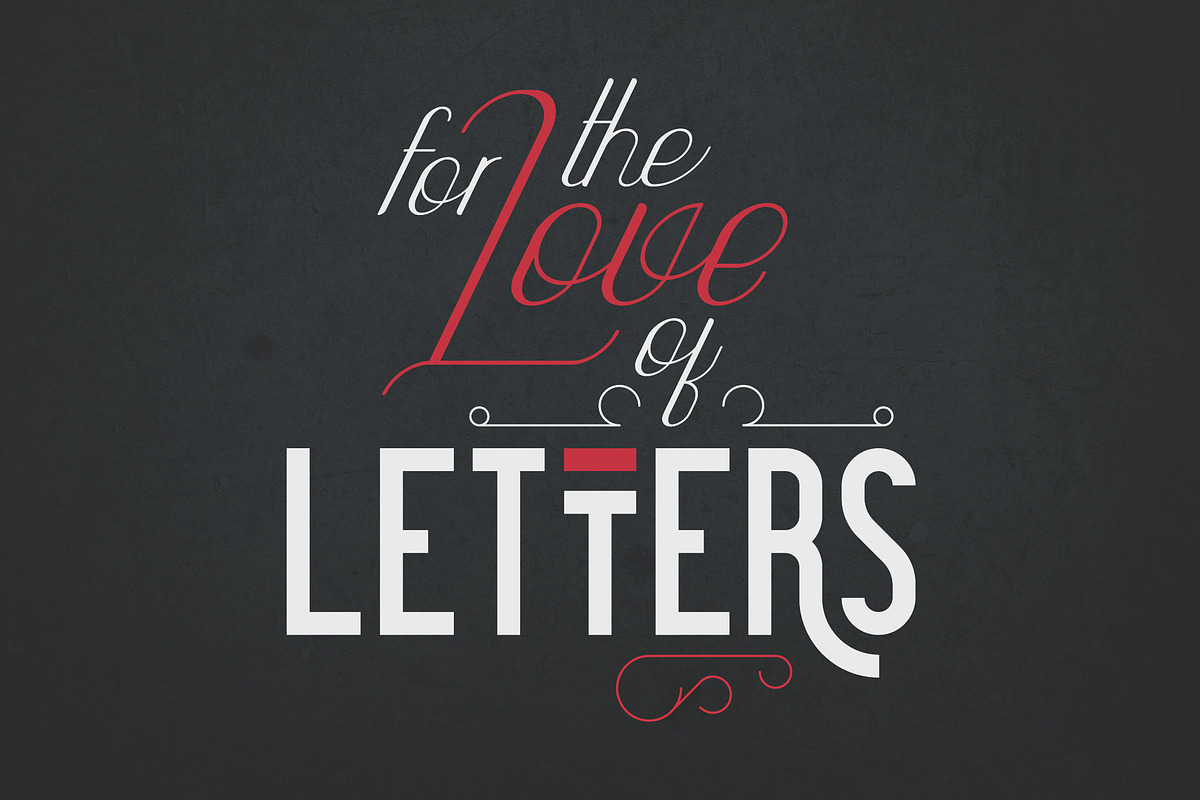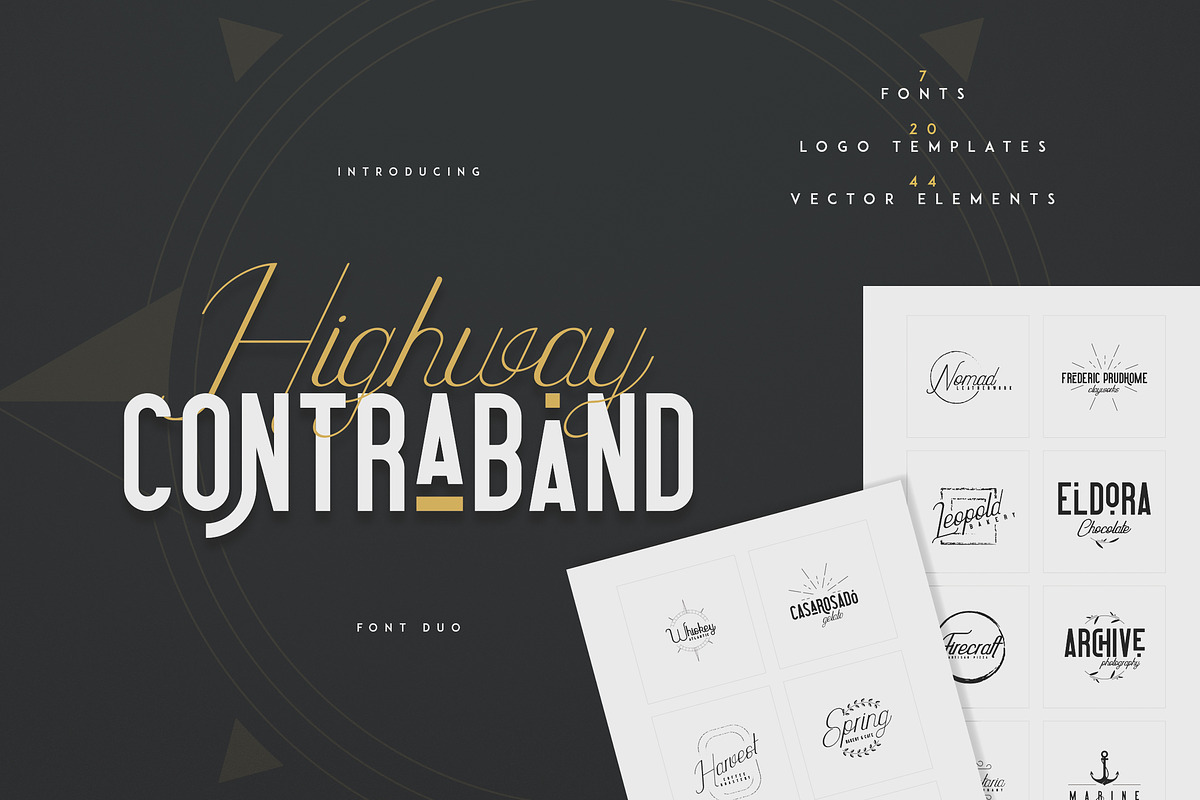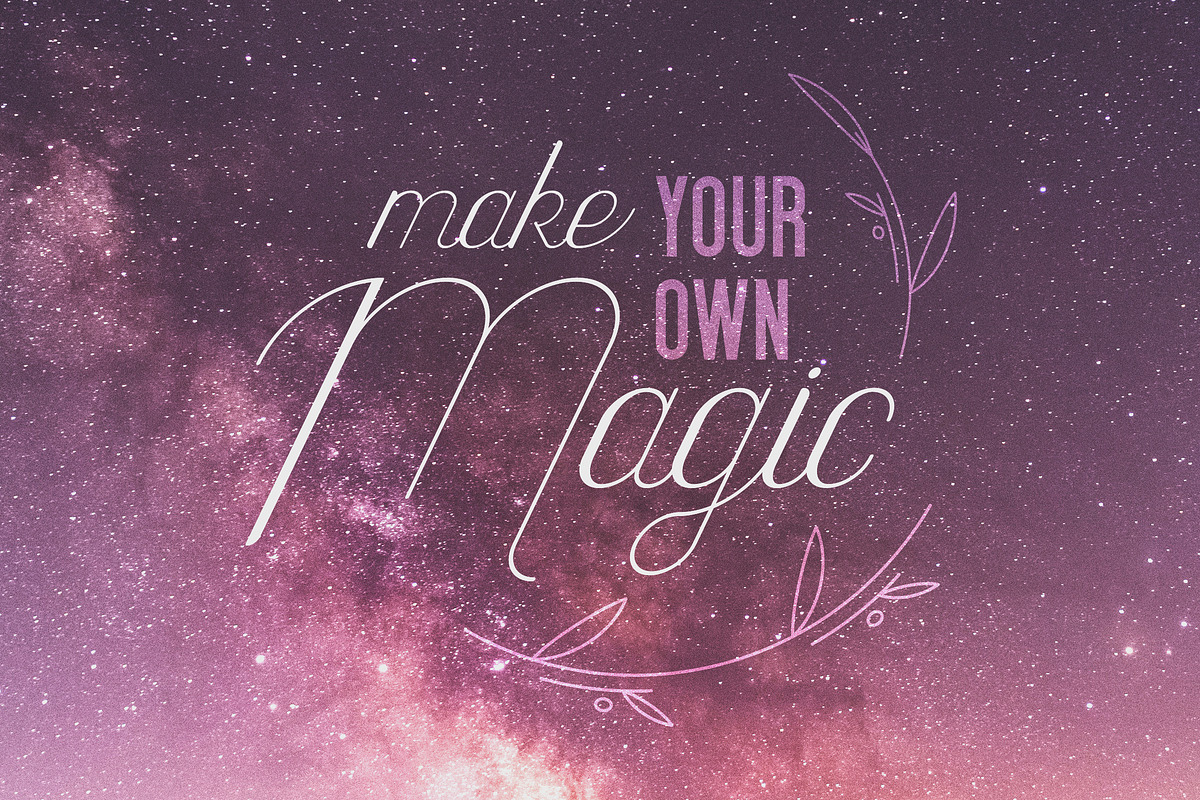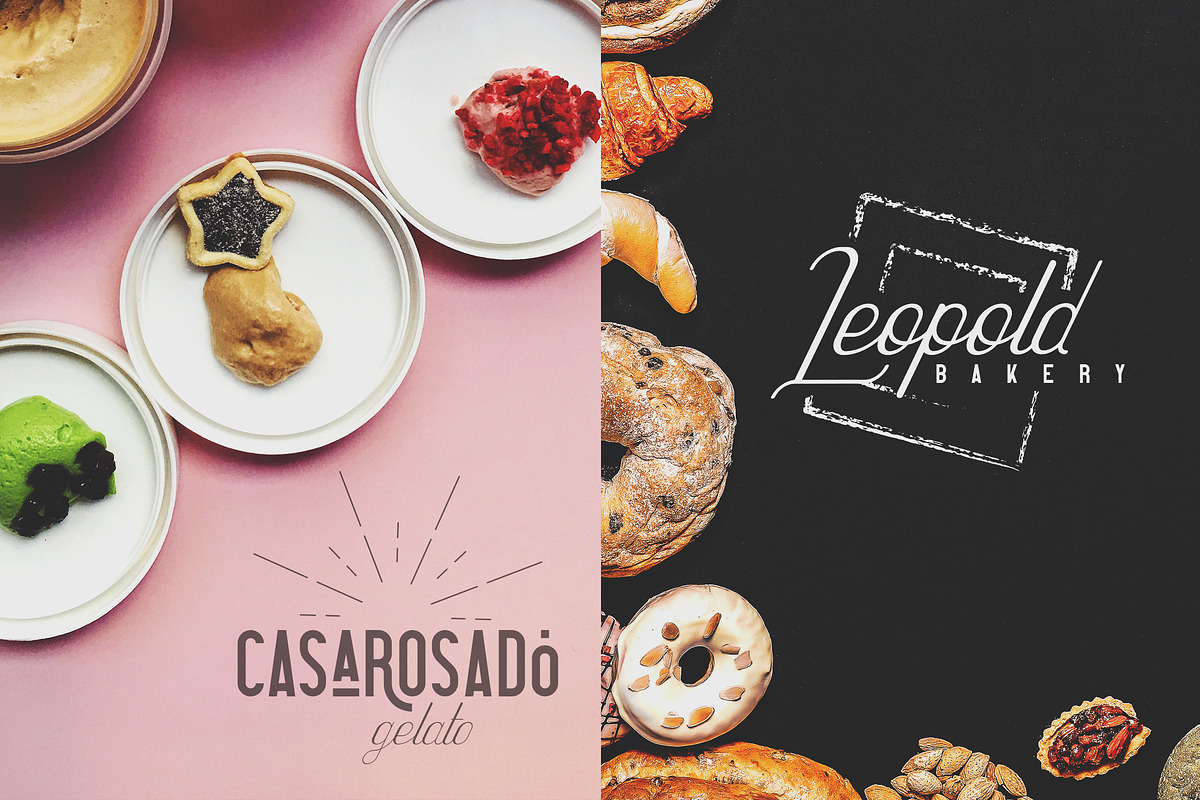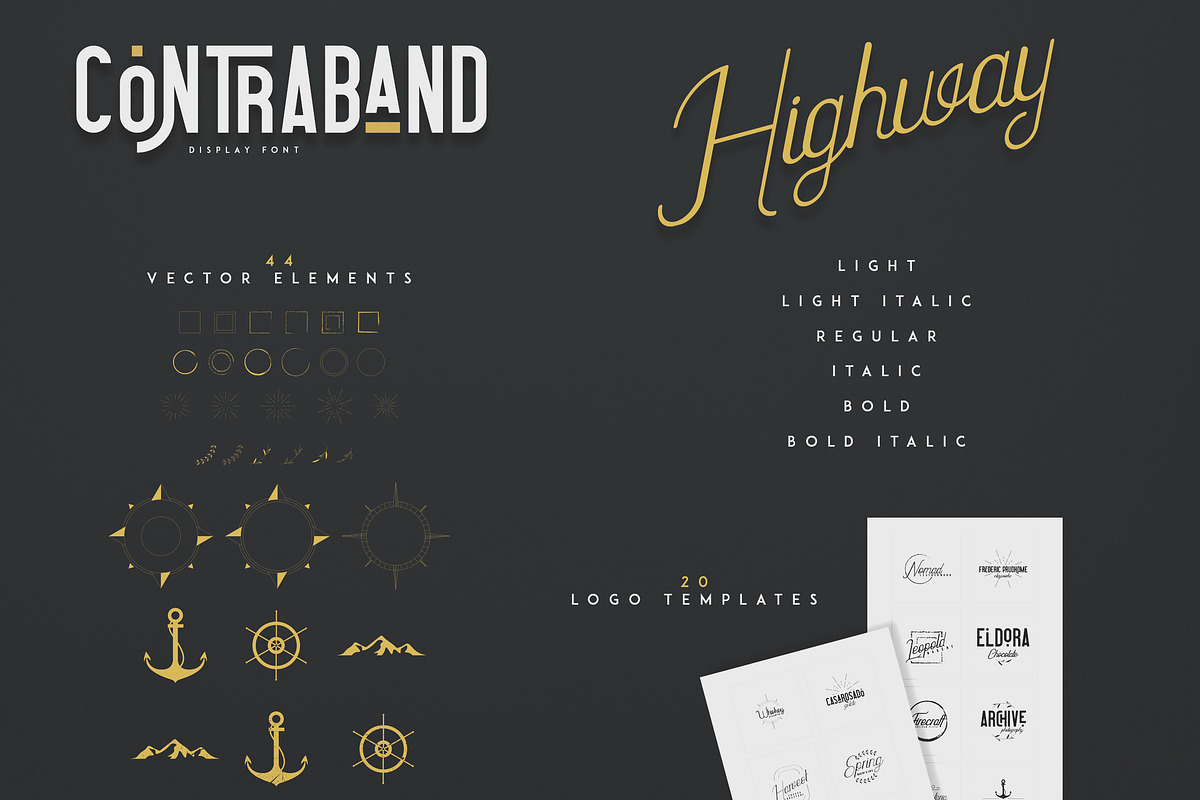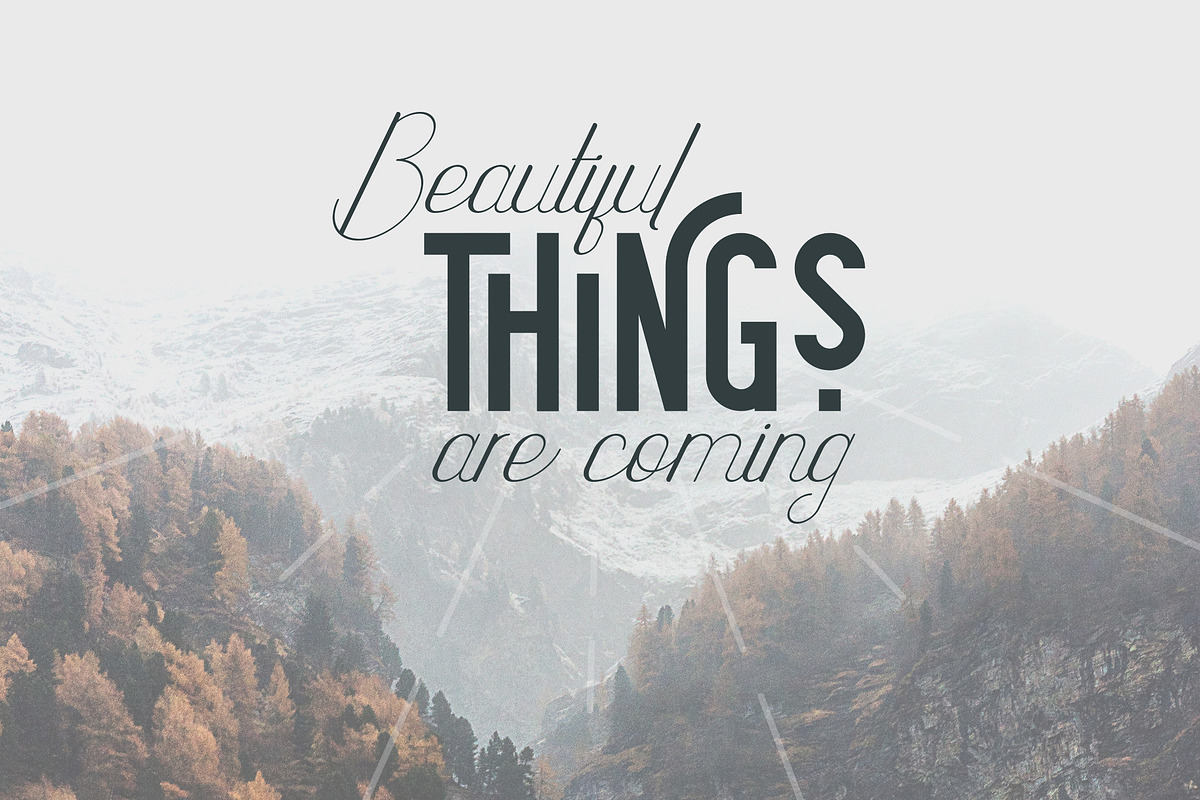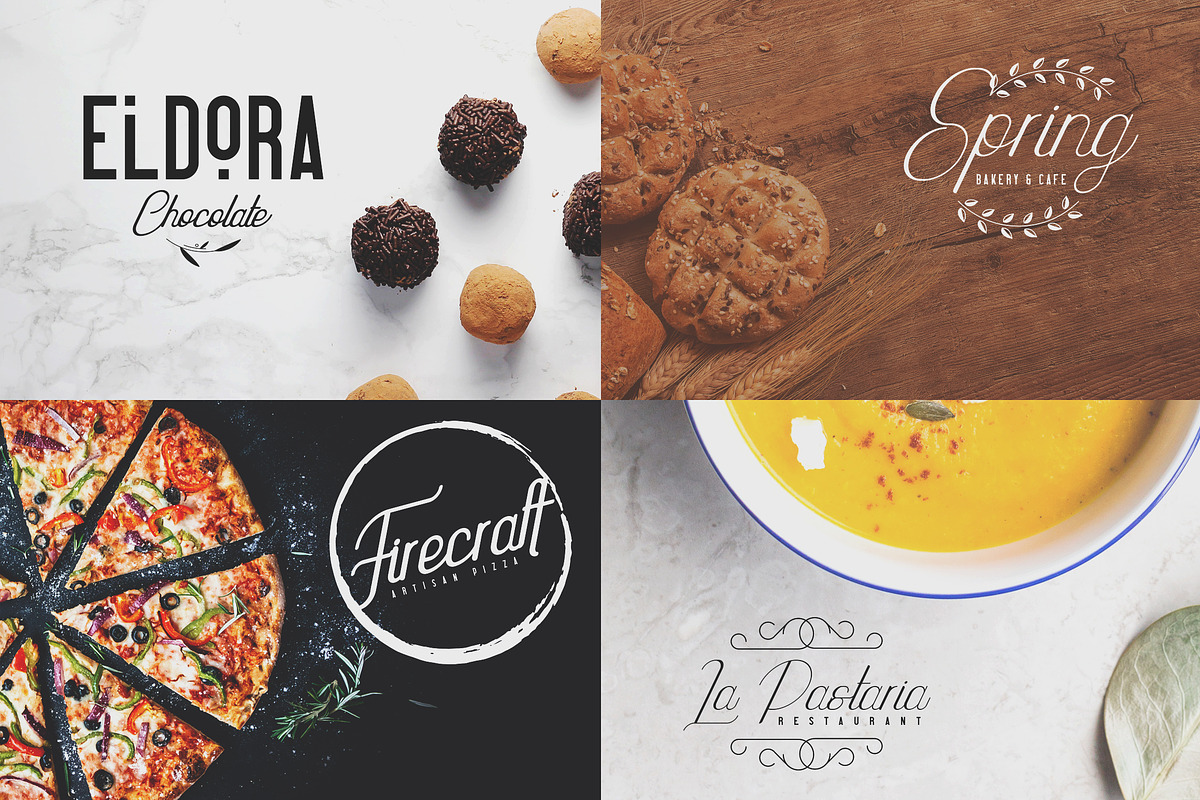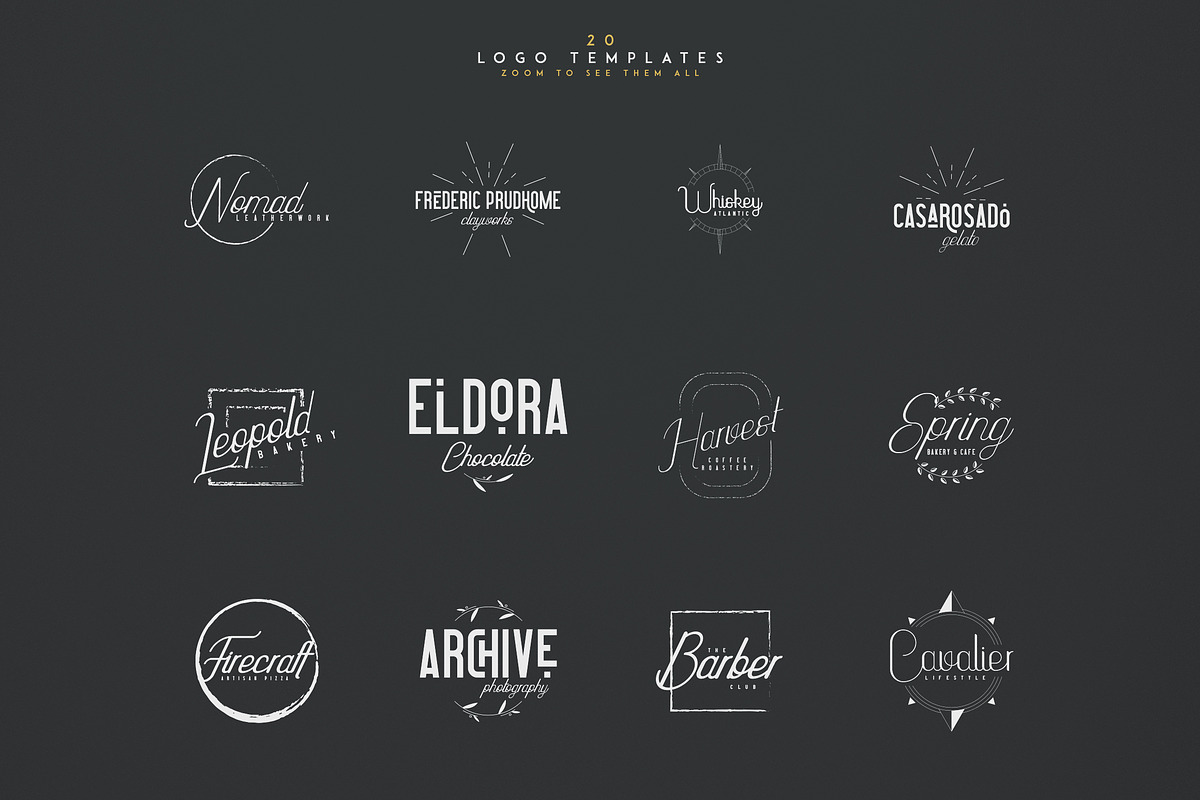
Highway Contraband - font duo + More
INTRODUCING Highway Contraband - font duo + 20 Logo templates + 44 Vector elements
Highway Contraband is vintage, clean font duo with total of 7 font styles, 20 logo templates, 44 vector elements, alternative glyphs and multilingual support. It's a very versatile font that works great in large and small sizes.
Highway Contraband is perfect for branding projects, home-ware designs, product packaging, magazine headers - or simply as a stylish text overlay to any background image.
Highway - light, light italic, regular, italic, bold, bold italic
Contraband display font
20 Premade Logo Templates